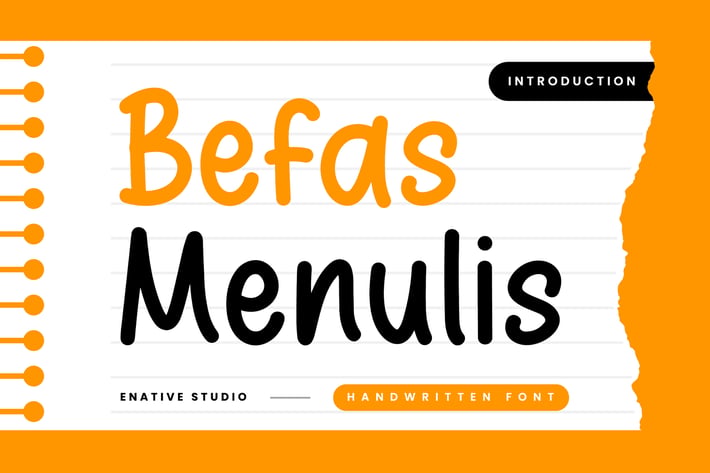
Befas Menulis - Handwritten Display Font
Befas Menulis is a unique display typeface perfect for titles, large text, branding, logotypes & graphic design purposes such as posters, pamphlets, and advertisements. This letter font can be a great choice for creating amazing logos, promotional content, and marketing presentations that can bring uniqueness and freshness at its best.